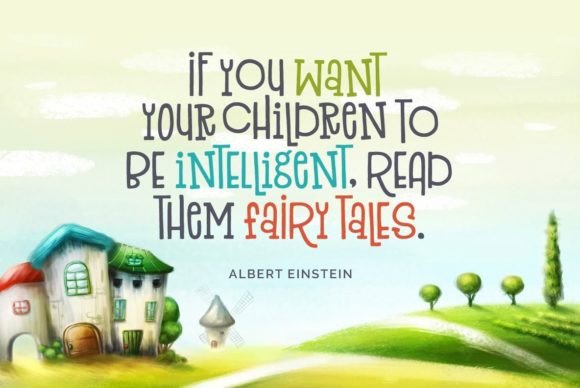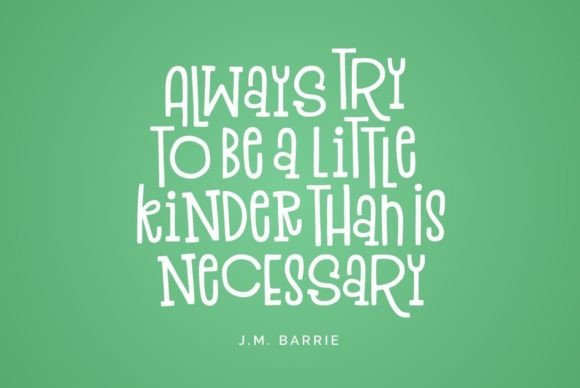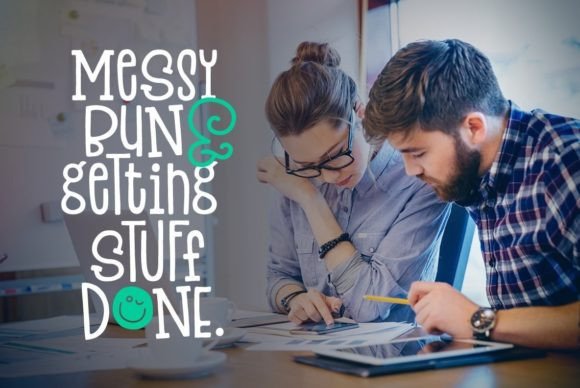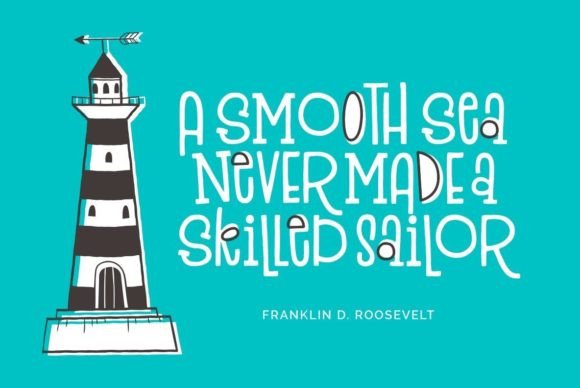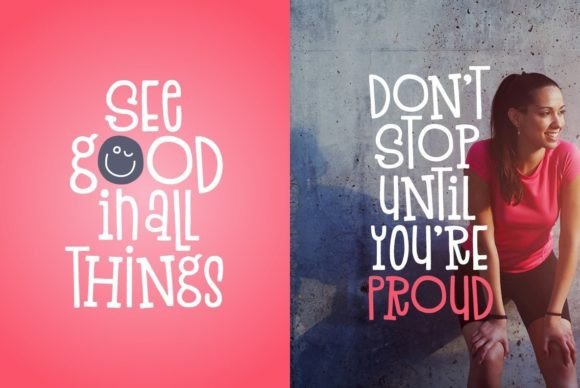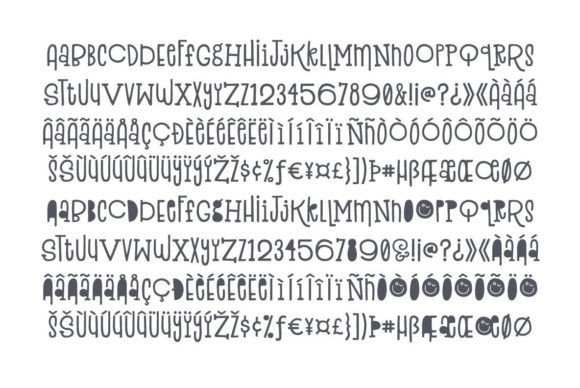
The Perfect Blend of Quirk and Charm: Anything Goes Font
You know that feeling when you’re brainstorming a new project and all the ideas just start flowing? It’s like the world is full of endless possibilities, and your creativity is running wild. That’s exactly what the Anything Goes Font is all about – embracing the freedom to create without any rules or boundaries. With its unique blend of sans and slab serif styles, this charming font is perfect for designers who want to add a touch of whimsy to their work.
Whether you’re designing a logo, a children’s book, or a package, the Anything Goes Font is the perfect tool to bring your vision to life. Its hand-drawn style gives it a personal, human touch that’s hard to find in more traditional fonts. And the best part? It’s incredibly versatile, making it a valuable addition to any designer’s toolkit.
Anything Goes Font Key Features
- Font Family: Anything Goes Font is a sans-serif font family designed for digital use.
- Unique Characteristics: Features a unique blend of geometric and organic shapes, resulting in a distinctive and modern aesthetic.
Designer Review: Anything Goes Font
Overall, I found the Anything Goes Font to be an interesting and eclectic choice. While it may not be for everyone, it does offer a unique touch to designs.
- ✨ Highly customizable: The font offers a range of styles and weights, making it easy to adapt to different design needs.
- ✨ Versatile: It works well for a variety of projects, from posters to logos, and even digital interfaces.
- ✨ Whimsical feel: The font’s playful and quirky nature can add a fun touch to designs, making it perfect for creative projects.
Limitsations
- ⚠️ Readability: At times, the font’s irregularities can make it difficult to read, especially in smaller sizes.
- ⚠️ Consistency: The font’s multiple styles can be inconsistent in their design, which may lead to a disjointed look.
In conclusion, the Anything Goes Font is a great choice for designers who want to add a touch of whimsy and playfulness to their projects. However, it may not be the best choice for projects where readability and consistency are crucial. With careful use and customization, this font can be a valuable addition to any design library.
For the best results, use the “Anything Goes Font” with bold or italic styles to add emphasis.
Experiment with different font sizes and colors to create a visually appealing design.
The “Anything Goes Font” is perfect for:
1. Titles and headings in creative projects.
2. Social media graphics and advertisements.
3. Designing menus and labels for food trucks or restaurants.